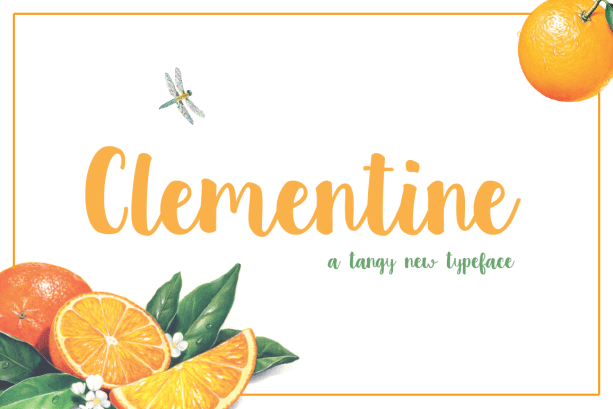
Celementine
About Celementine
Clementine Script is a tangy new hand crafted typeface. Available for both personal and commercial use. Download and use The Clementine Script for anything and everything. This script was inspired and designed with a large chisel felt marker. Bold characters…